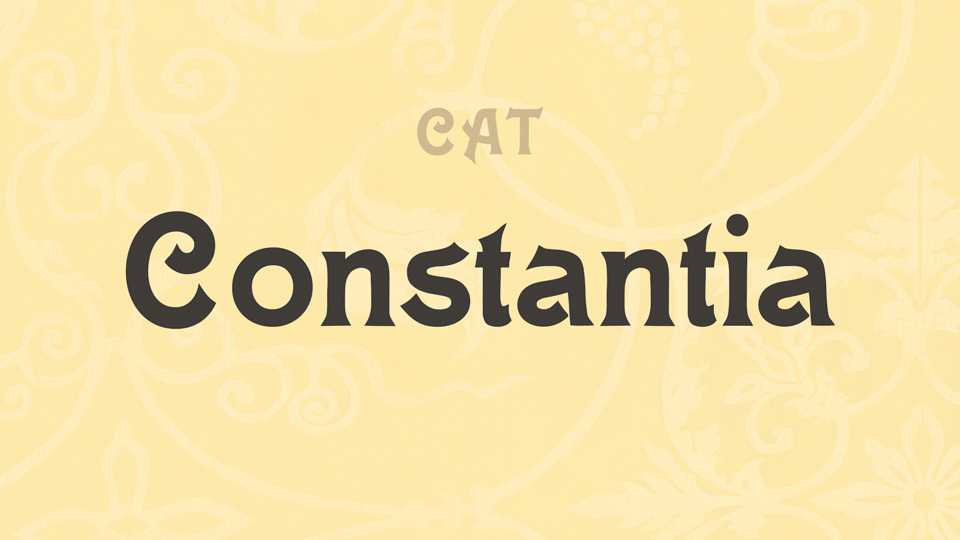
Download Constania font, an old victorian typeface, a revieval of the type, designed by Berthold Bauer foundry in 1899. Constania font looks perfect fot vintage designs, wedding and Christmas cards and other artworks.